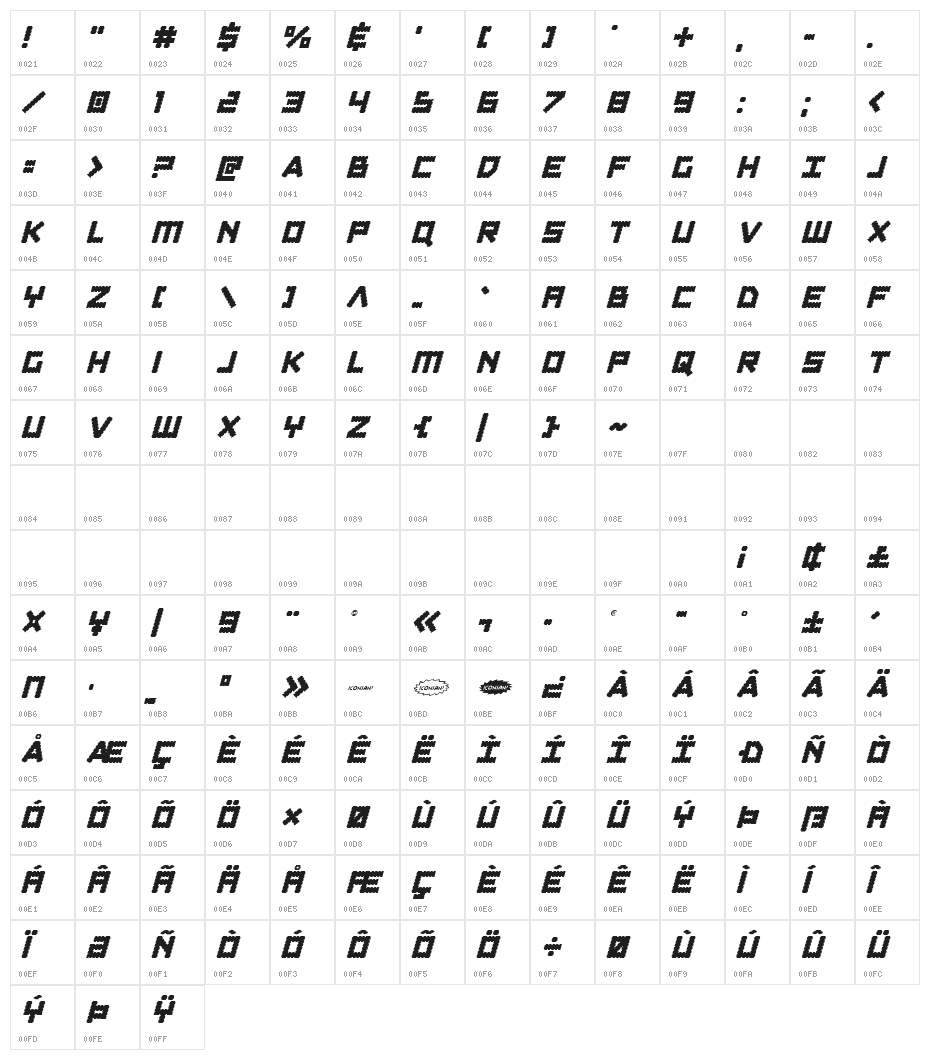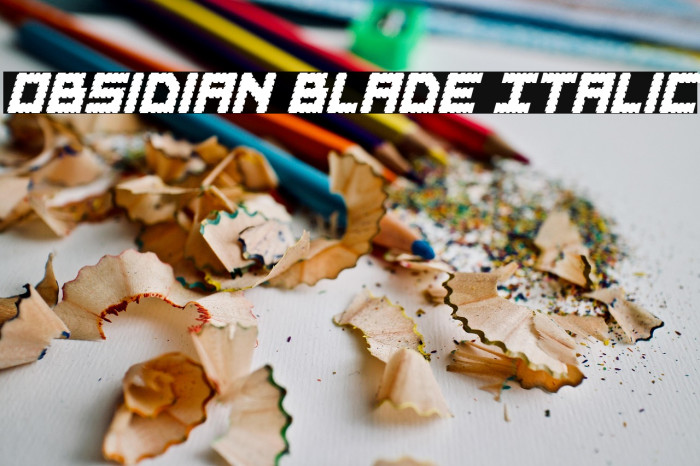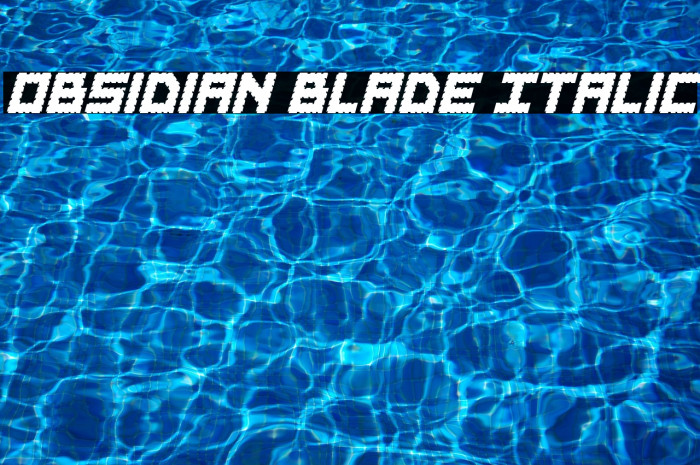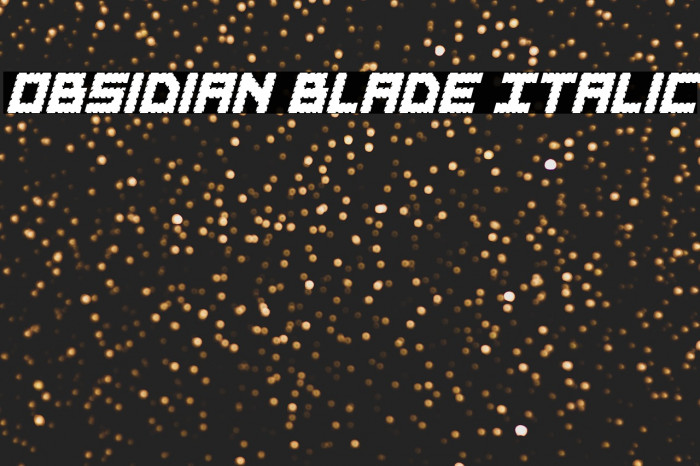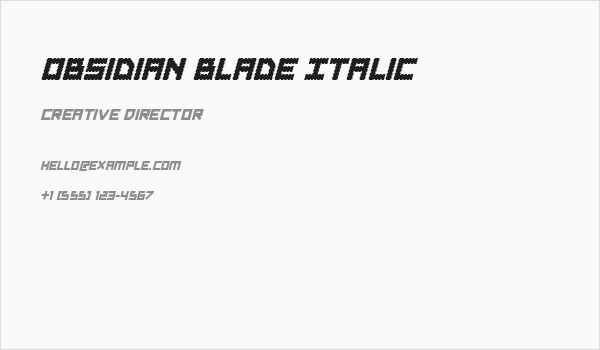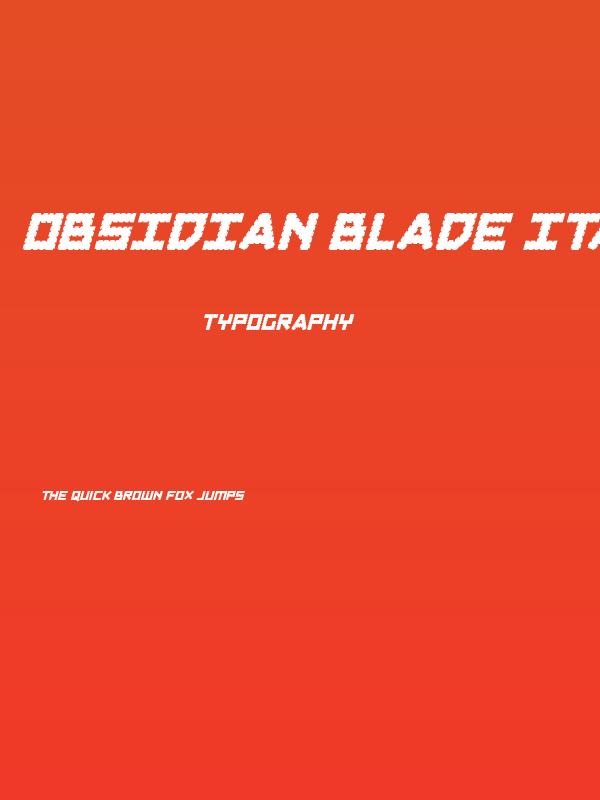
Obsidian Blade Italic Font
Obsidian Blade Italic Description
This font features a bold, angular design with a distinct italic slant, giving it a dynamic and aggressive appearance. The characters are constructed with sharp, jagged edges that resemble blades, creating a sense of motion and intensity. The uppercase and lowercase letters maintain a consistent style, with each character exhibiting a unique, edgy flair. The numbers and special characters are similarly styled, ensuring a cohesive look across all glyphs. This font's striking design makes it ideal for projects that require a strong visual impact.
| Proposed Projects | Ideal for video game titles, action movie posters, sports branding, and edgy graphic designs. |